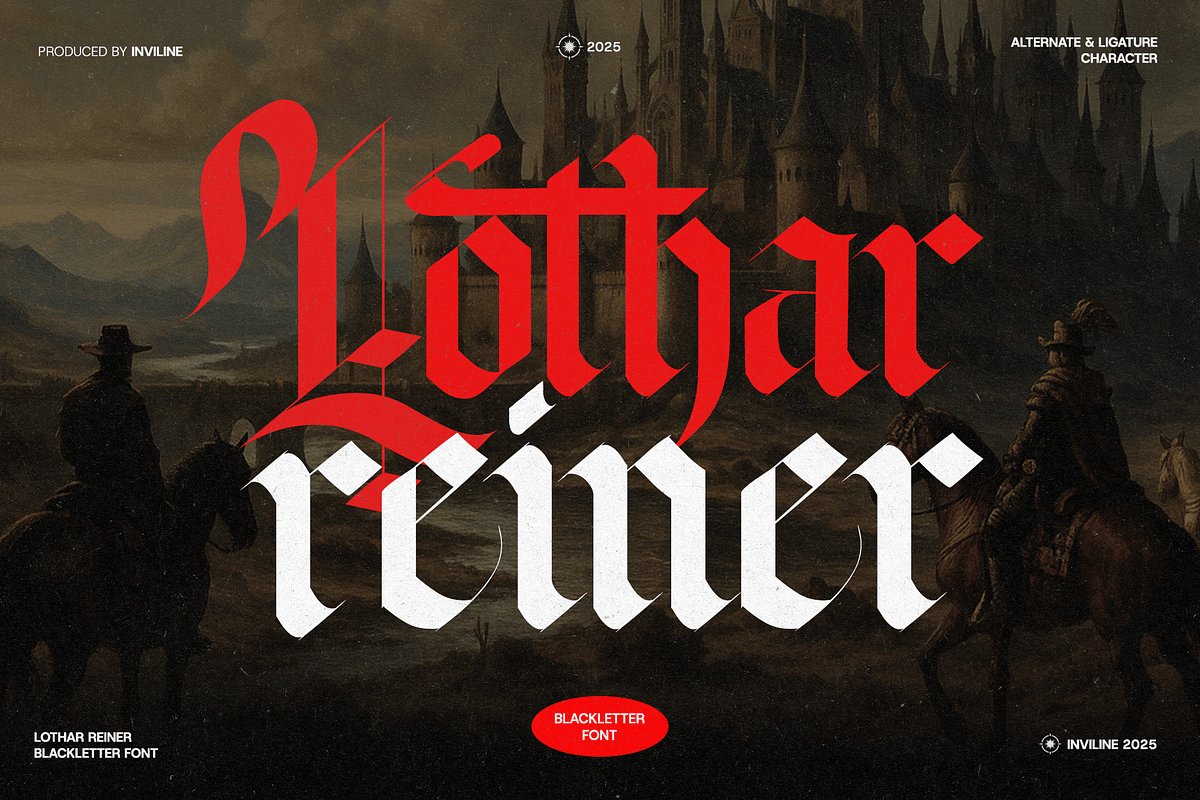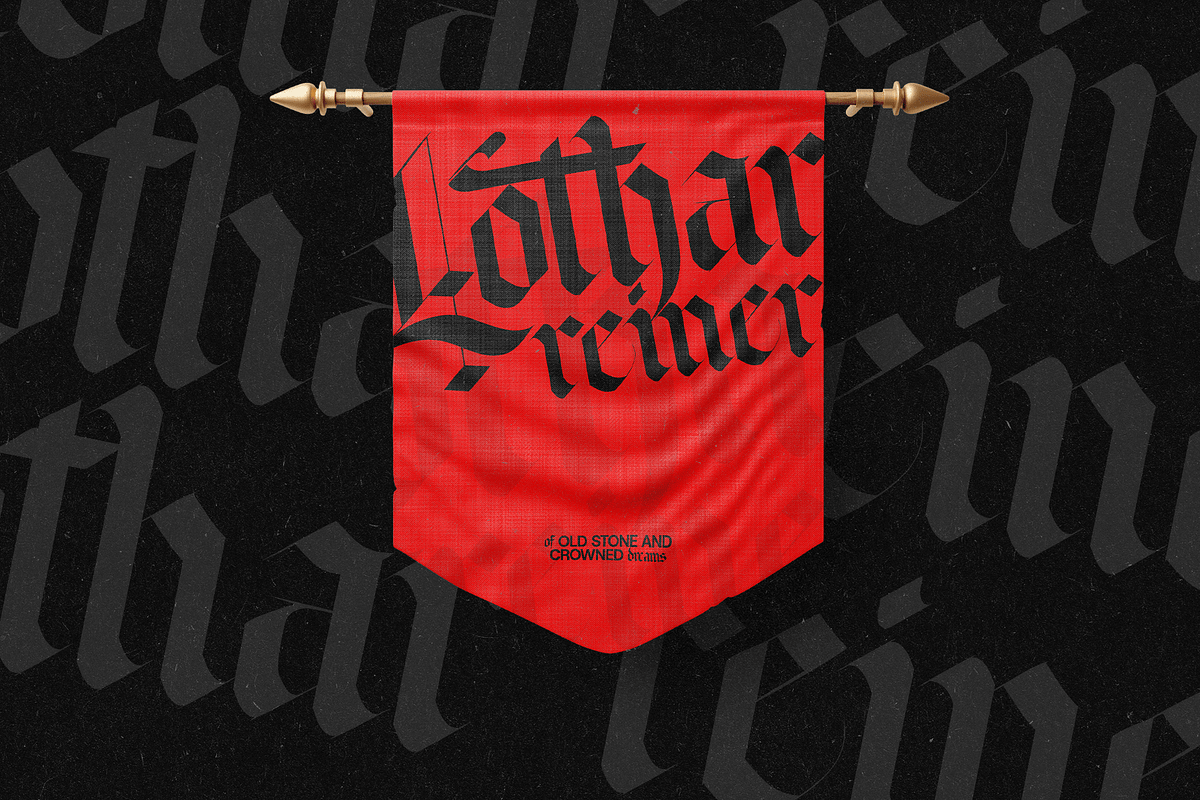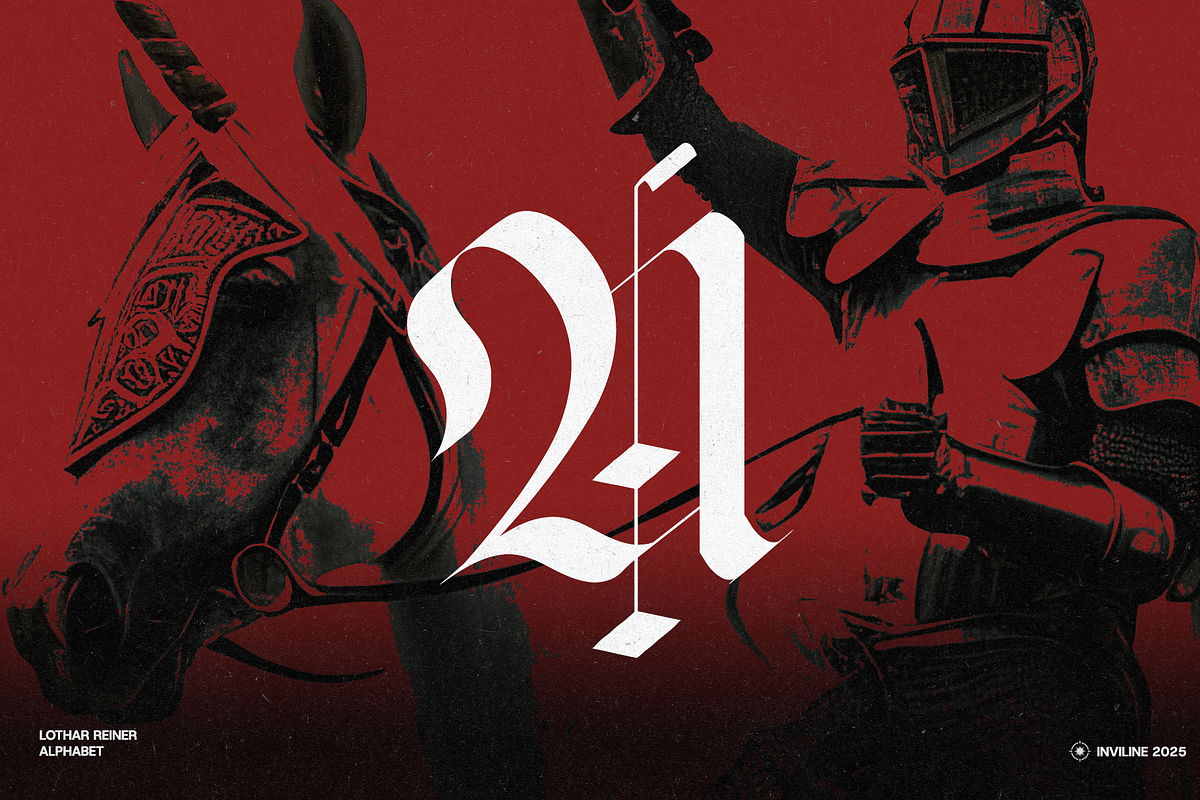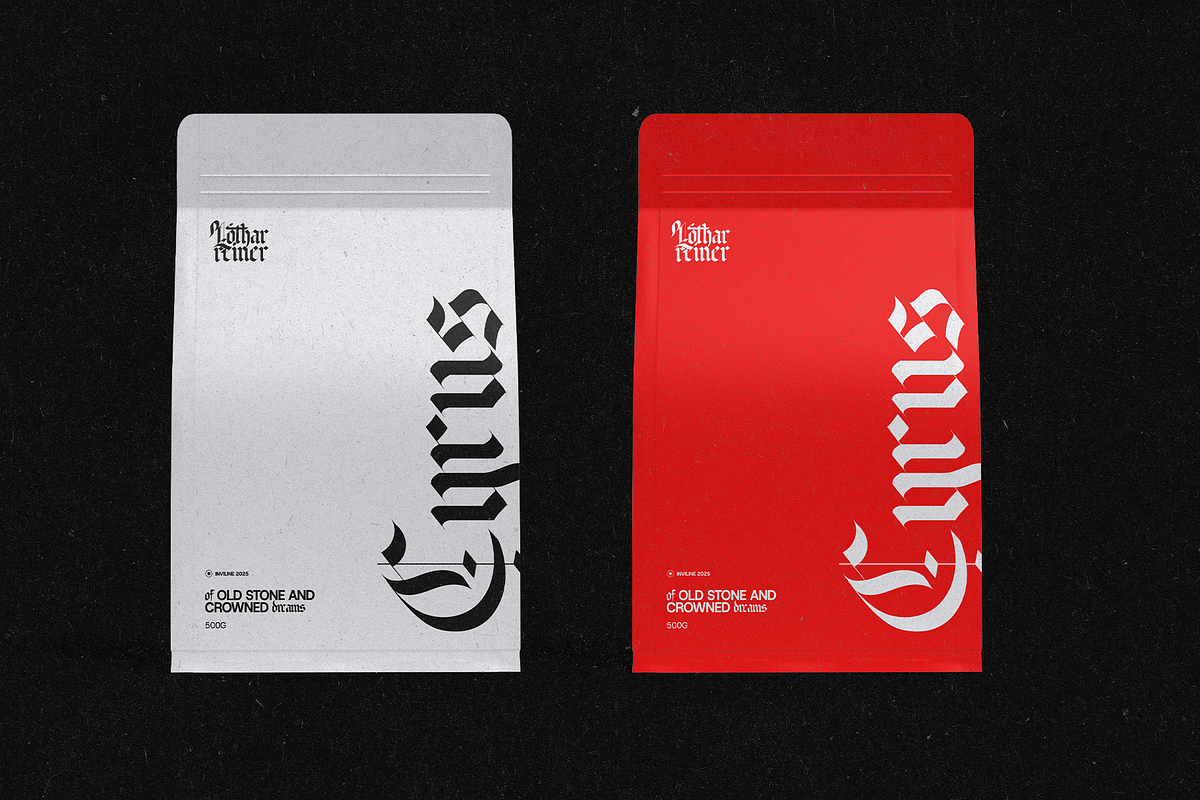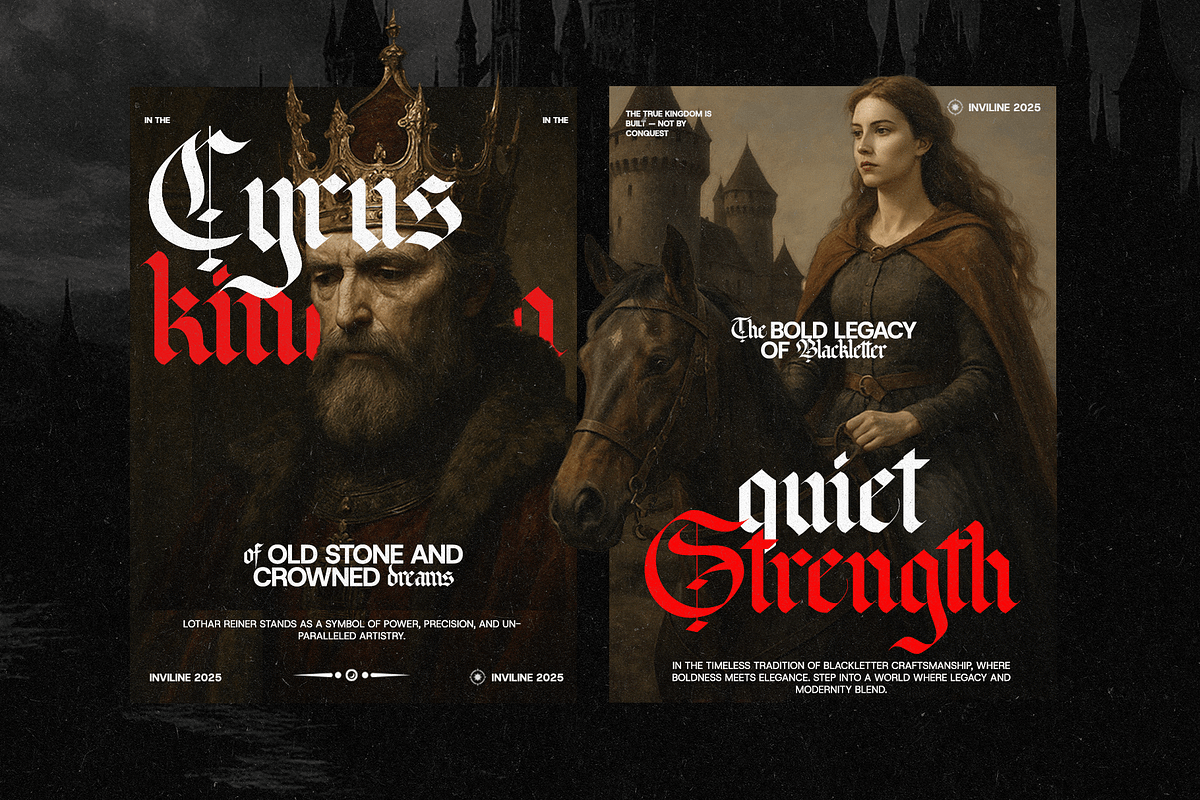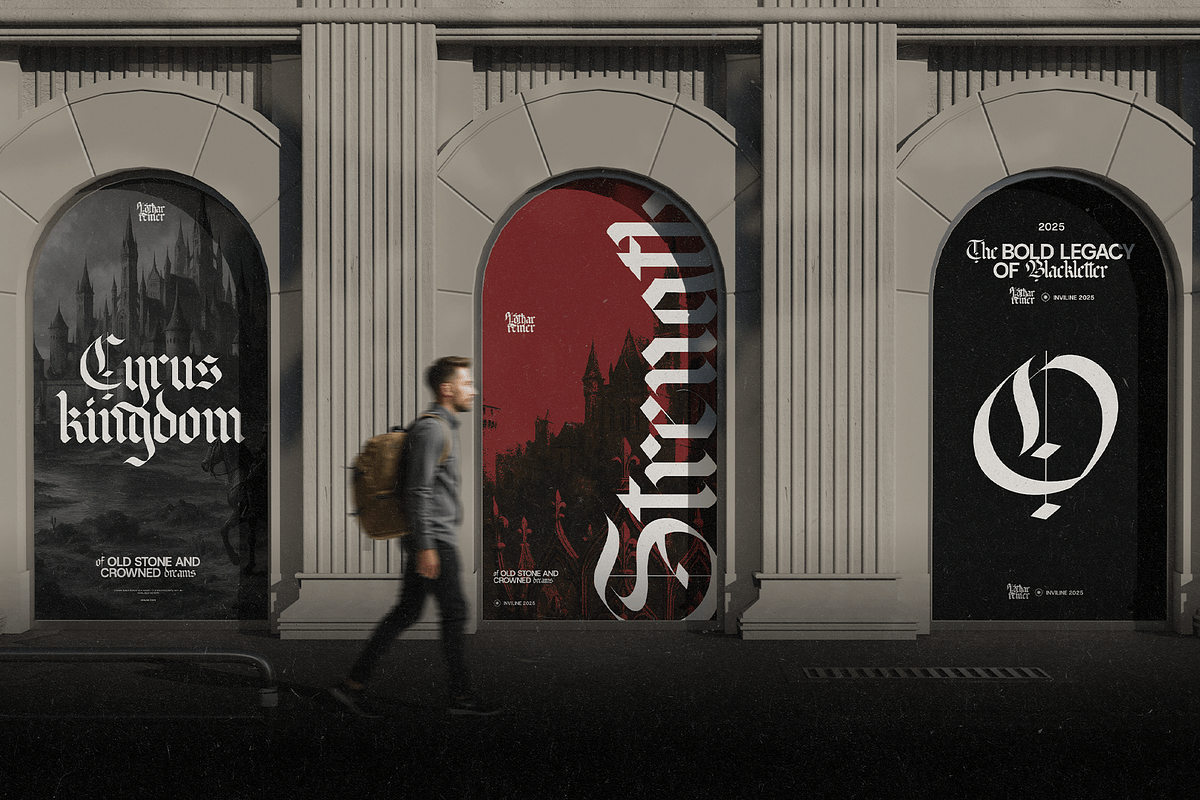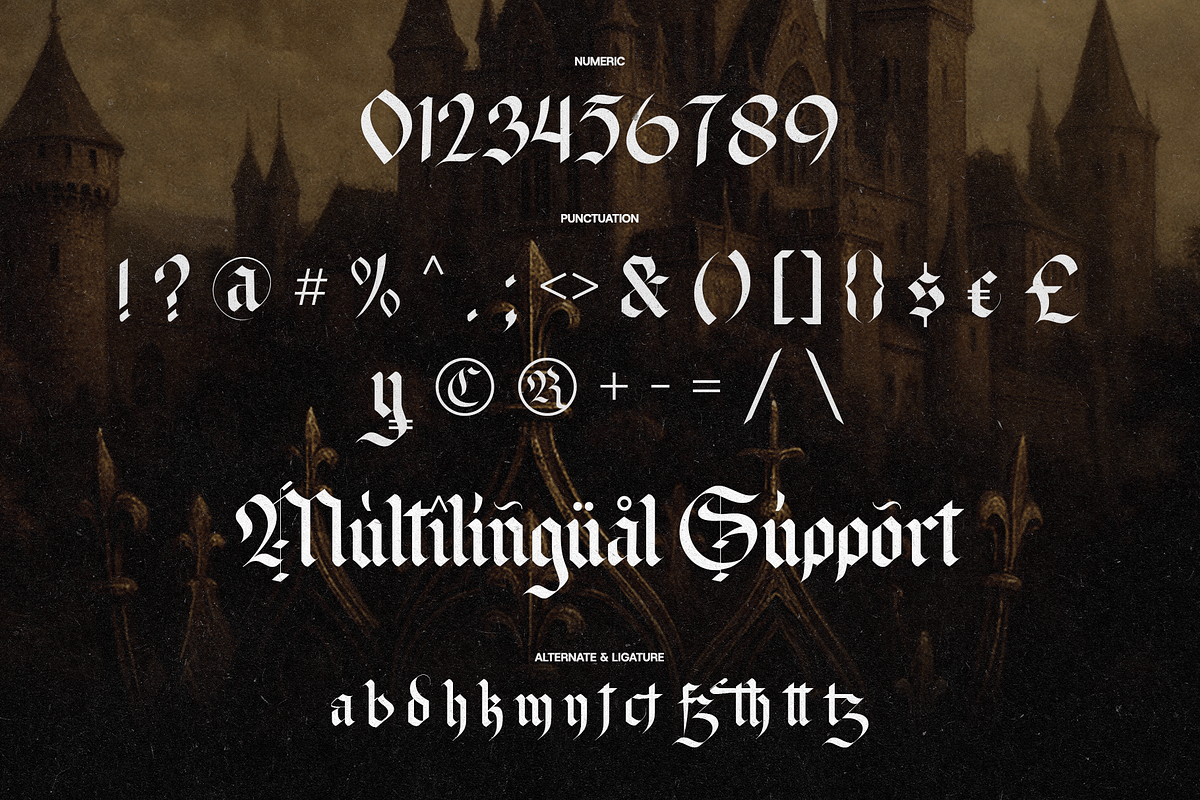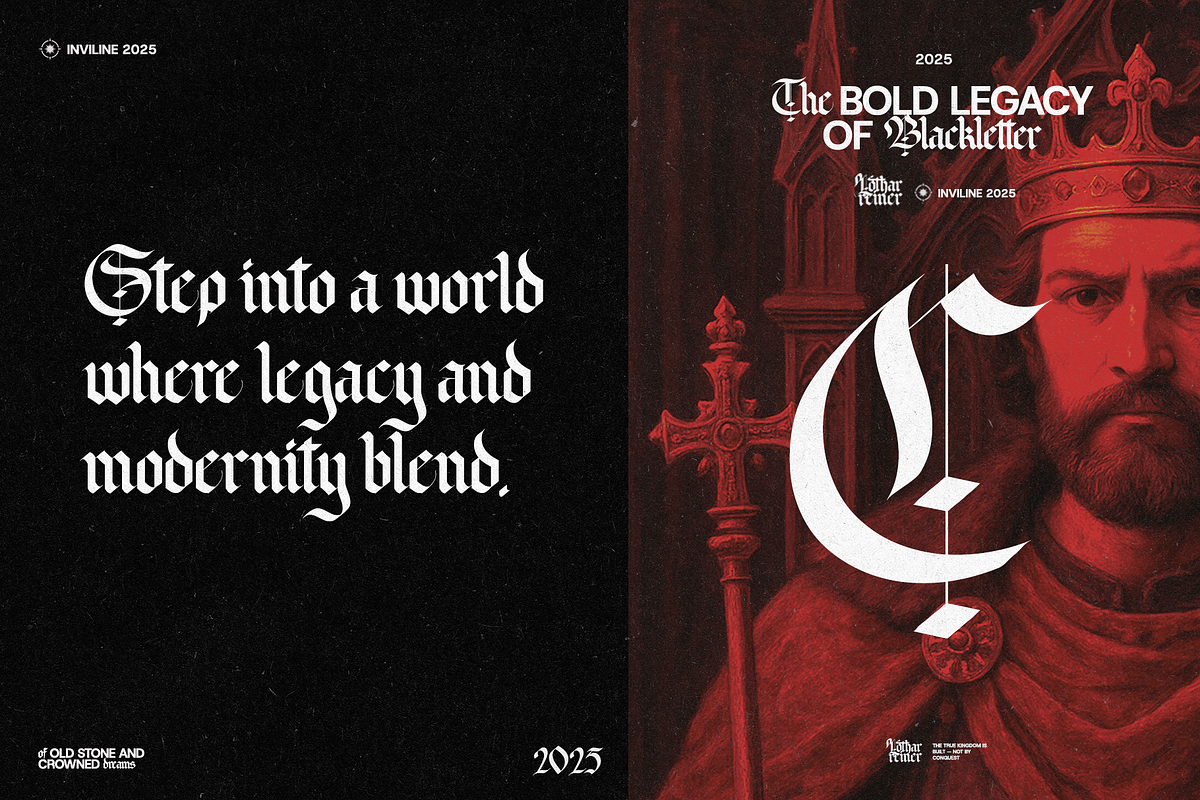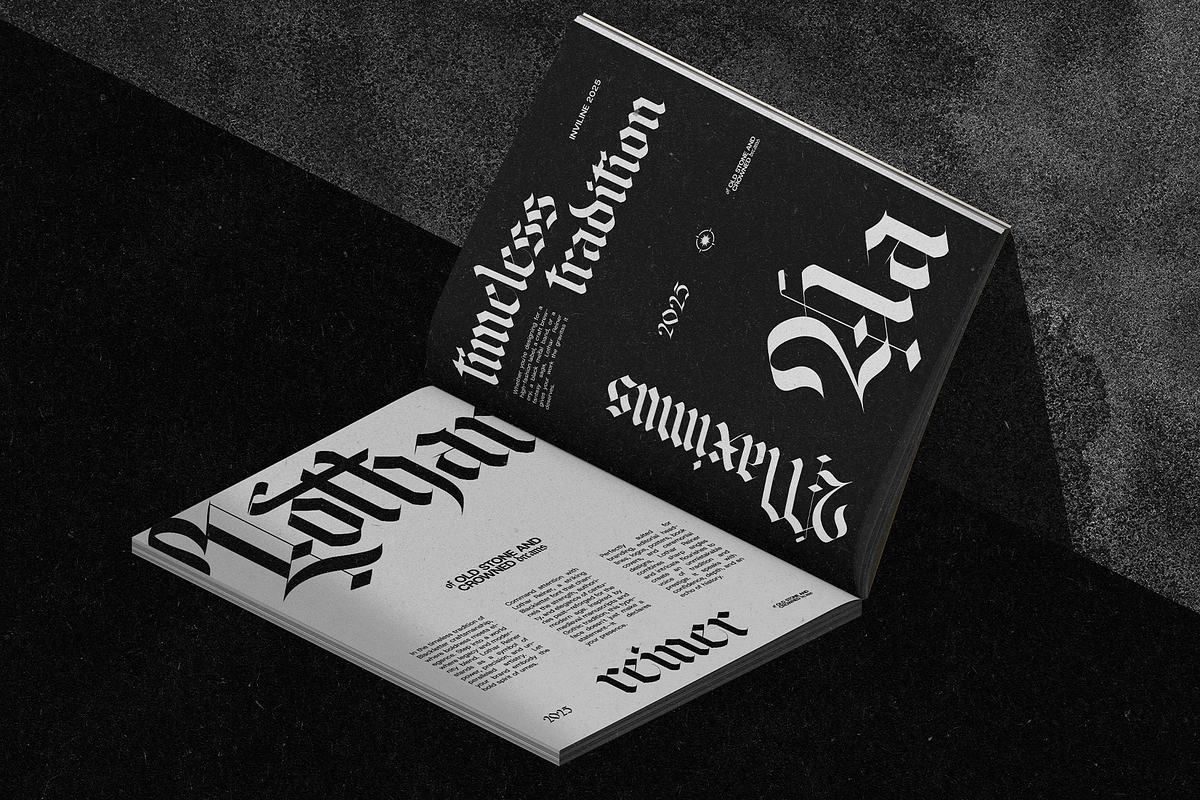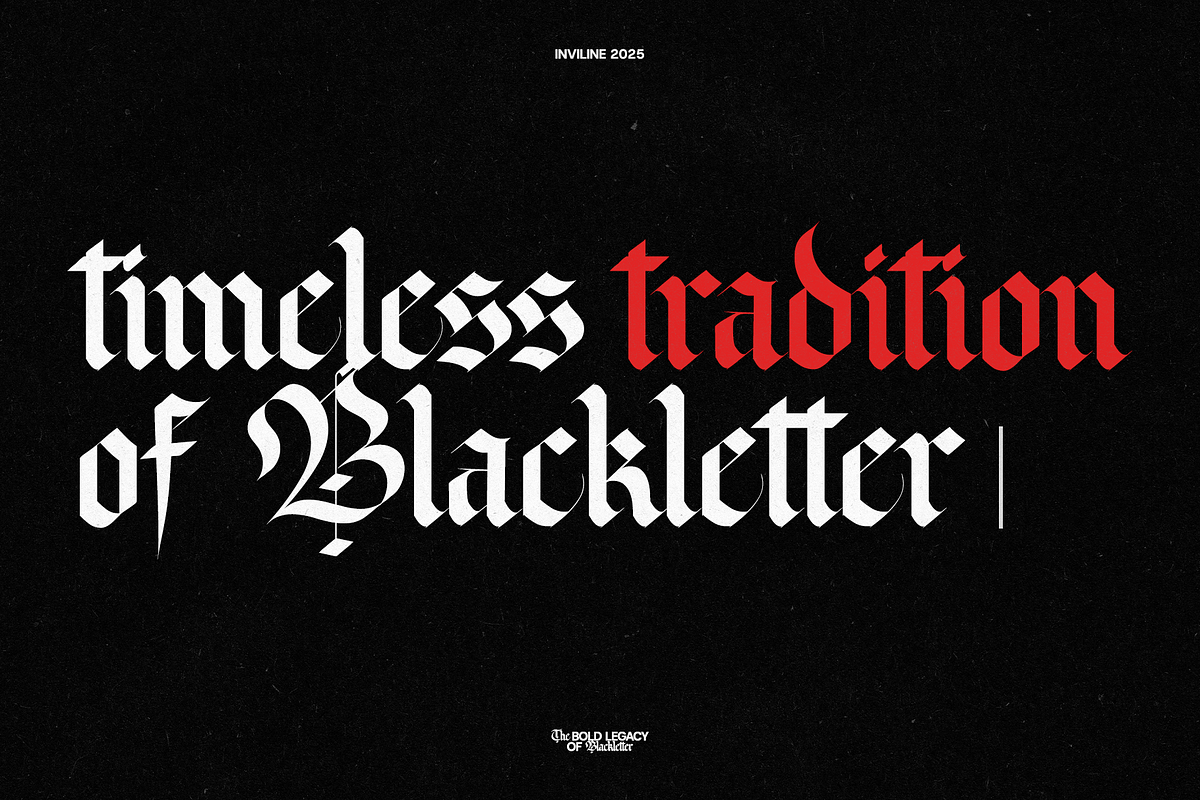
Lothar Reiner – Gothic Blackletter
Lothar Reiner – Gothic Blackletter Font
Lothar Reiner is a powerful and dramatic blackletter font inspired by medieval manuscripts and gothic calligraphy. With sharp strokes, bold character, and rich historical aura, it's the perfect choice for dark branding, music covers, and vintage themes.
- Gothic blackletter style with bold texture
- Includes alternate characters & stylistic ligatures
- Perfect for large-scale designs like logos and headlines
- Authentic hand-crafted feel with modern usability
- Multilingual support (Latin + accents)
- Includes: Alternates, ligatures, multilingual characters